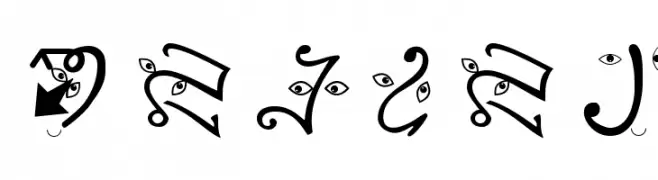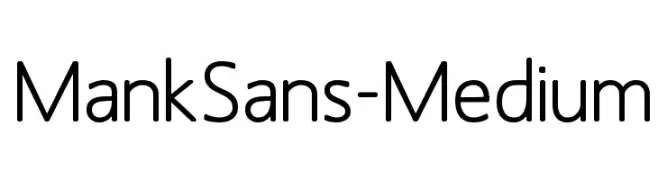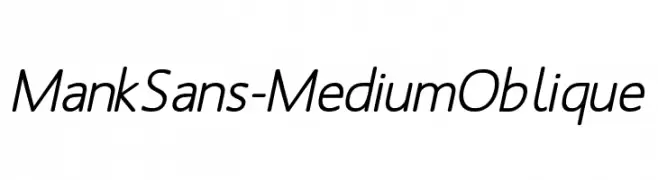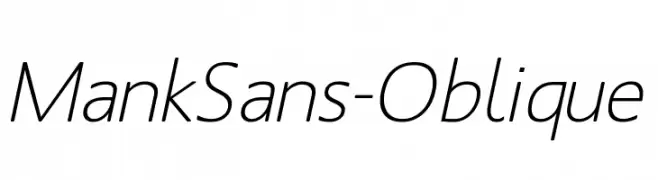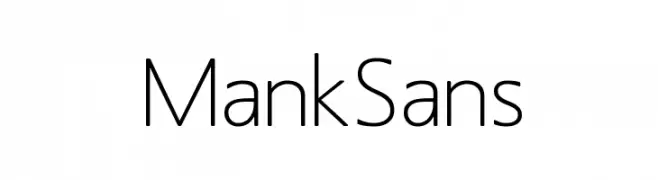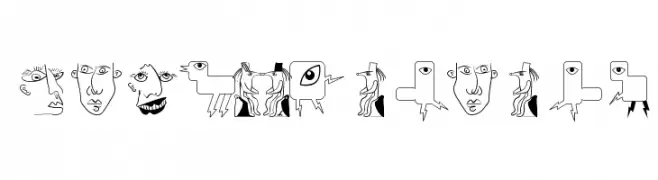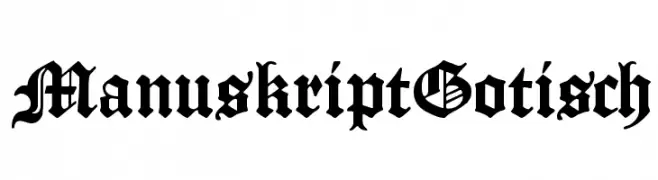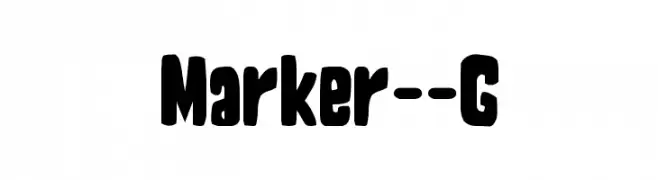
• ManiaK
A whimsical and decorative font with intricate embellishments and playful design.
• MankBalloons
A playful, balloon-like decorative font with irregular, wavy outlines.
• MankSans
A clean, modern sans-serif font with geometric structure and balanced spacing.
• MankSans-Medium
A clean, modern sans-serif font with smooth curves and uniform strokes.
• MankSans-MediumOblique
A modern, oblique sans-serif font with clean lines and a sleek appearance.
• MankSans-Oblique
A modern, oblique sans-serif font with clean lines and consistent stroke width.
• MankZieglers
An artistic and abstract font featuring unique illustrative characters.
• ManuskriptGotisch
• MarinumBreezed
A classic serif font with modern elegance and medium contrast.
• Marker__G
A bold, rounded, and playful font with a hand-drawn appearance.